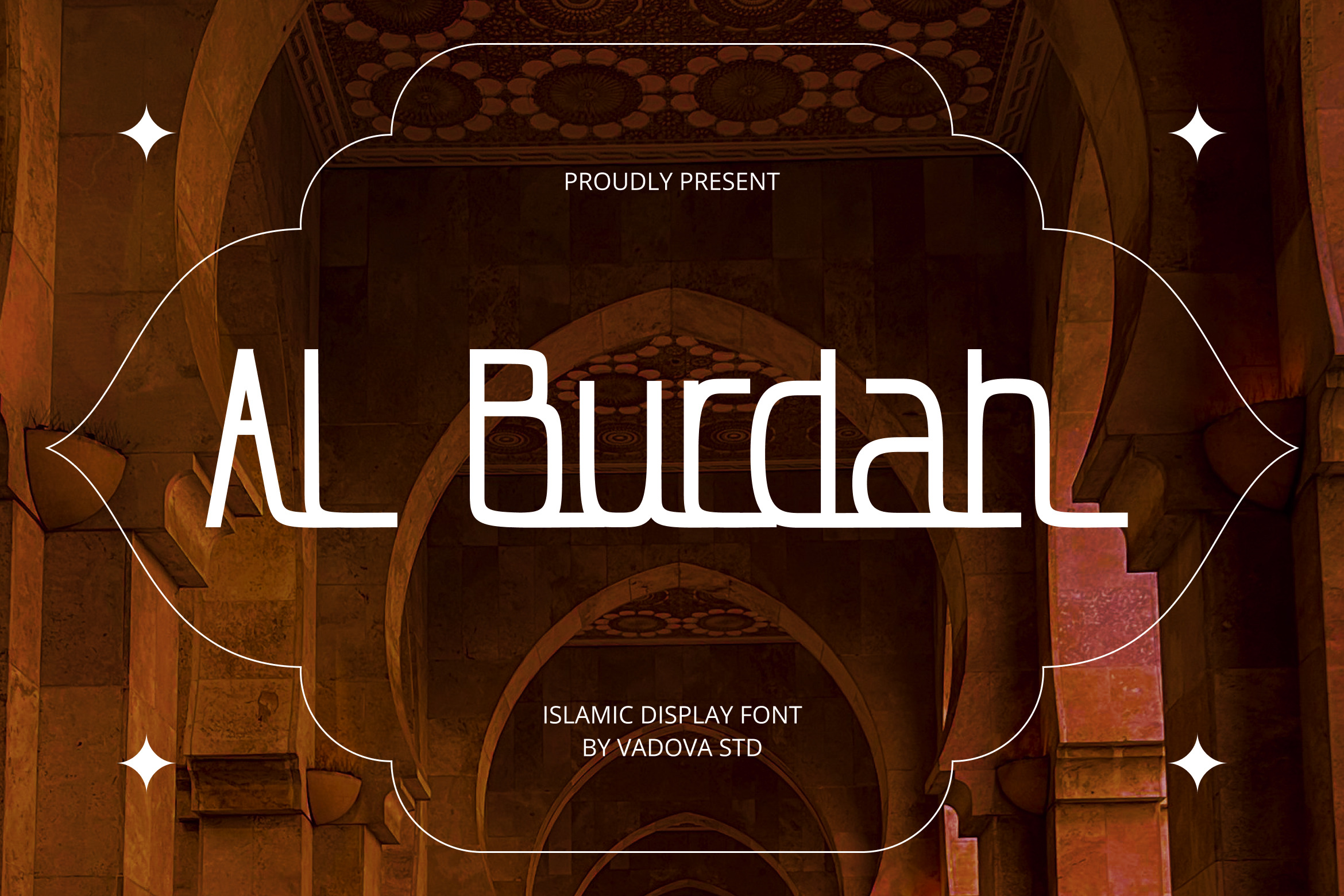
Al Burdah – Islamic Display Font
Al Burdah is a distinctive Islamic display typeface that blends geometric elegance with cultural depth. Inspired by the arches, symmetry, and architectural beauty of Islamic design, each letterform carries a structured yet graceful rhythm. Its contemporary display style brings a fresh interpretation to traditional aesthetics, making it a versatile choice for branding, posters, editorial layouts, and religious or cultural events.
Whether used for bold headlines or refined decorative text, Al Burdah evokes a strong sense of identity and heritage while remaining clean and modern in execution.
Font Highlights
Uppercase & lowercase characters
Numerals and punctuation
Multilingual character support
Modern Islamic display design with geometric influence
Why Designers Choose Al Burdah
Cultural Sophistication – Reflects Islamic architectural elegance through structured letterforms.
Distinctive Style – Unique display look that stands out in both modern and traditional designs.
Versatile Use – Ideal for branding, editorial layouts, religious content, and event designs.
Modern Meets Tradition – Seamlessly combines cultural elements with clean contemporary aesthetics.
Best Applications
Islamic and cultural branding projects
Event posters and religious festival designs
Product packaging with Arabic or Islamic themes
Editorial layouts and magazine covers
Logo designs and identity systems
Elegant signage and display graphics